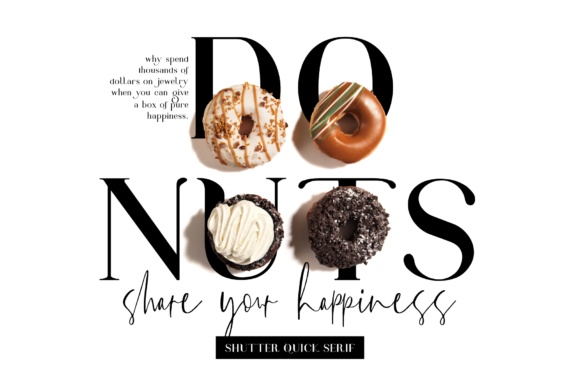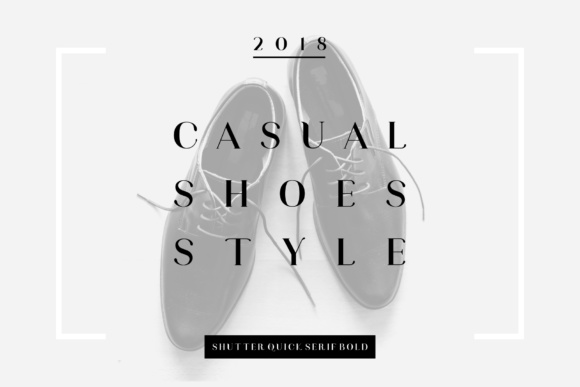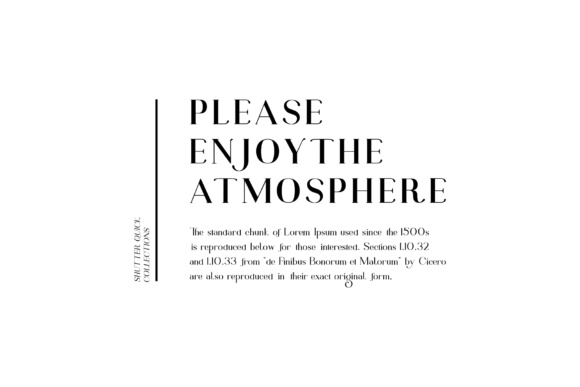
Shutter Quick is a beautiful font duo, perfect for giving any type of project an editorial feel! This font duo includes a relaxed handwritten script font and a bold serif font, a reliable style combination, so you can create designs that work for a large range of projects.